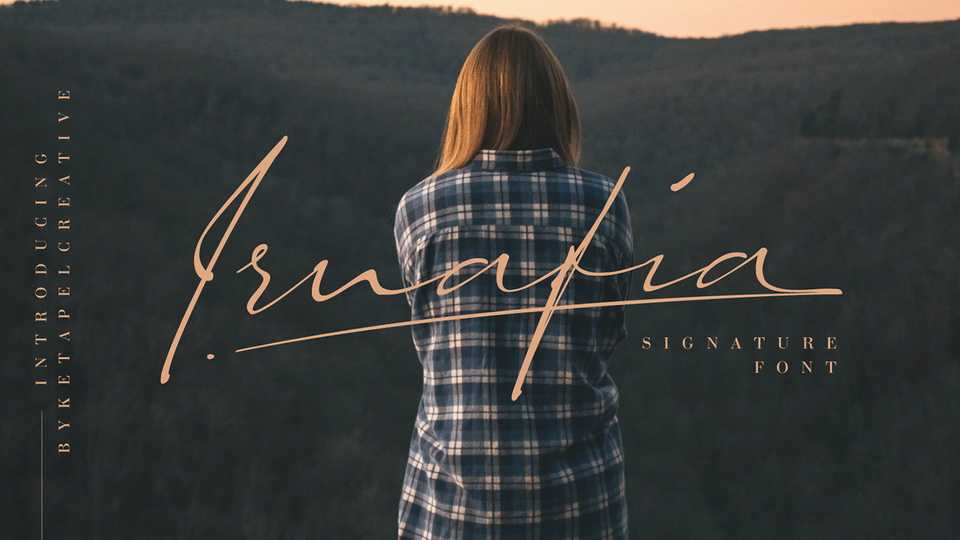
Download Irnafia font, stylish and elegant handwritten signature typeface. Irnafia is a perfect font for wedding invitations, stationery, photography, social media posts, logo designs, greeting cards, and much more!
Designer: Ketapel Creative